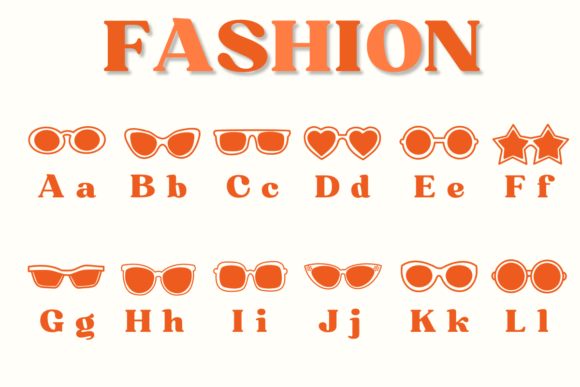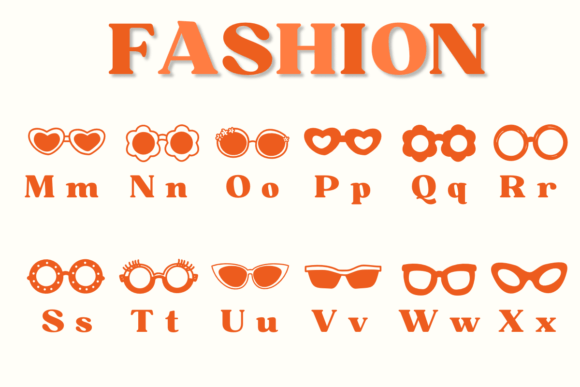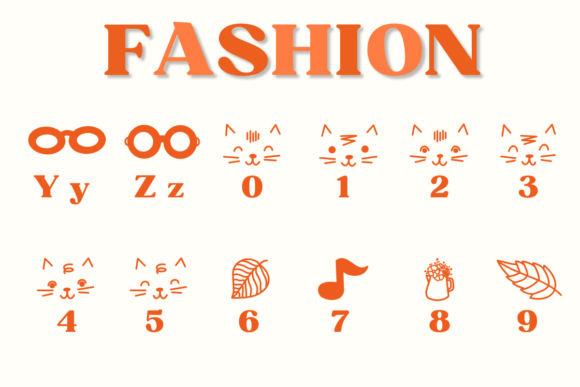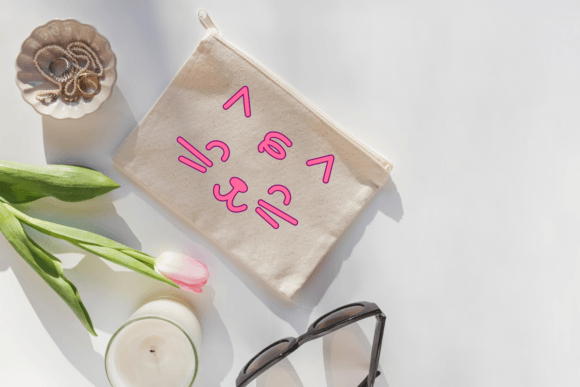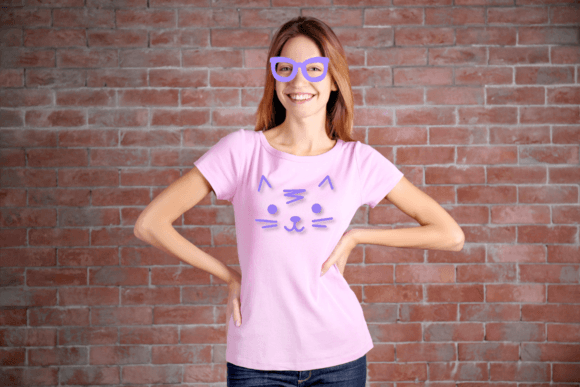
The Fashion Font: A Cute Dingbats Delight for Creative Projects
I’ll never forget the time I was working on a wedding invitation project, trying to find the perfect font to match the bride’s quirky and playful style. I scoured the internet, tried countless fonts, but nothing seemed quite right. That was until I stumbled upon the Fashion Font – a cute dingbats font with a fun theme that instantly elevated my design. In this article, I’ll share my experience with this charming font, its features, and how to make the most of it in your creative projects.
An Honest Review of Fashion Font
- Unique and playful dingbats that add a touch of whimsy to any design ✅
- Perfect for creative projects such as wedding invitations, DIY crafts, decorations, and logos ✨
- Easy to use and pairs well with a variety of fonts, making it a versatile addition to any designer’s toolkit 👍
- Some characters may not work well in certain contexts, such as in tables or as a primary font for body text ⚠️
- Limited use in formal or professional designs, as its playful nature may not be suitable for all audiences 🤔
The Story Behind Fashion Font
Fashion Font was designed with creatives in mind. Its designer, inspired by the world of fashion and art, aimed to create a font that would add a touch of playfulness and whimsy to any design. The result is a unique and versatile font that’s perfect for a wide range of creative projects.
| What type of projects is Fashion Font best suited for? | Wedding invitations, DIY crafts, decorations, logos, and other creative projects that require a playful touch. |
| Does Fashion Font support OpenType features? | Yes, Fashion Font supports OpenType features, glyphs, and stylistic alternates, making it a versatile font for designers. |